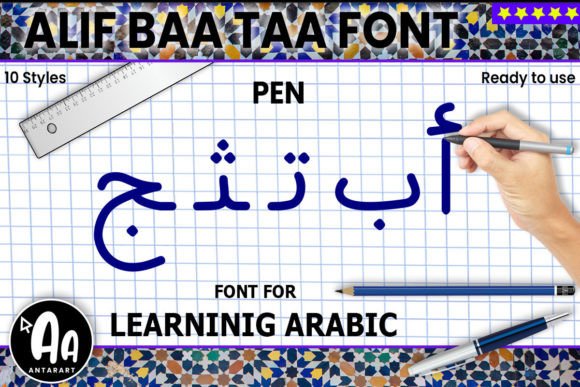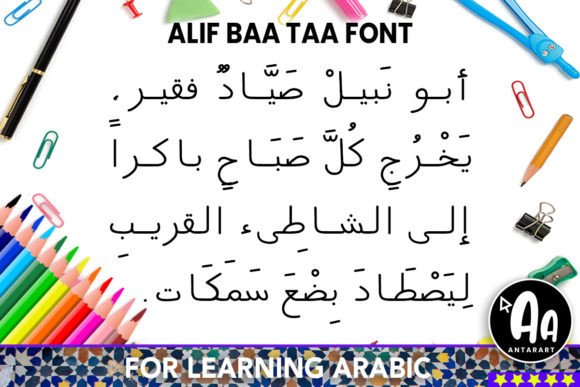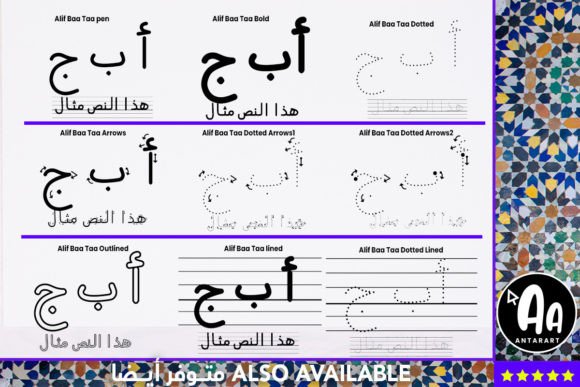
Alif Baa Taa Pen Font
About Alif Baa Taa Pen Typeface
Alif Baa Taa Pen Typeface is a handwritten Arabic font designed to support teachers, students, and language enthusiasts. With pen-style strokes, it provides learners with a natural writing experience while practicing Arabic letters. Because of its practical structure, this typeface is highly effective for worksheets, classroom resources, and digital language apps.
A Handwritten Typeface for Arabic Learning
Educational fonts need to balance clarity with authenticity, and Alif Baa Taa Pen Typeface achieves this perfectly. Its smooth, pen-inspired design helps learners visualize how each letter should appear when written by hand. In addition, the font is easy to trace, making it an excellent choice for beginners.
Perfect Typeface for Worksheets and Teaching
For teachers, Alif Baa Taa Pen Typeface is a valuable resource. For example, it can be used in practice worksheets, flashcards, and lesson materials. Moreover, the natural pen effect adds realism, making handwriting exercises more engaging for students.
A Typeface for Students and Self-Learners
Students and independent learners can also benefit from Alif Baa Taa Pen Typeface. It allows for repeated tracing, reinforces memory, and builds confidence in writing. Furthermore, it can be combined with dotted or lined Arabic fonts to create progressive learning activities.
Another strength of Alif Baa Taa Pen Typeface is its adaptability. In print, it looks sharp on worksheets, textbooks, and classroom posters. Digitally, it integrates smoothly into educational apps, presentations, and e-learning platforms. Because it remains legible at any size, it is suitable for both small practice sheets and larger resources.